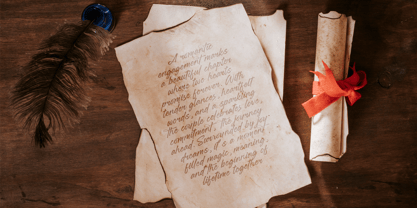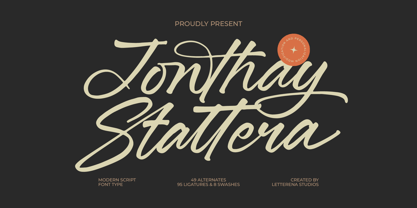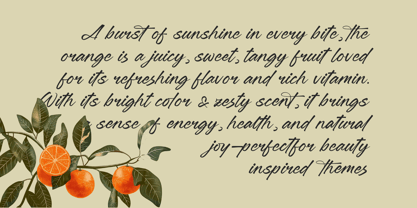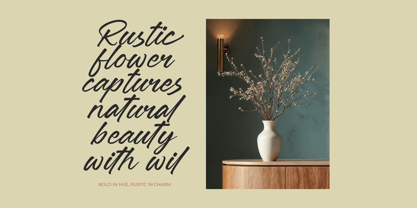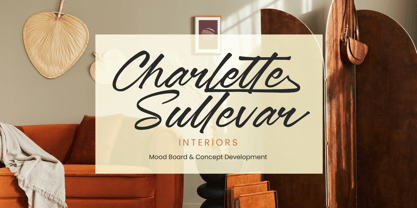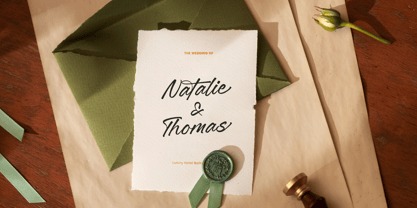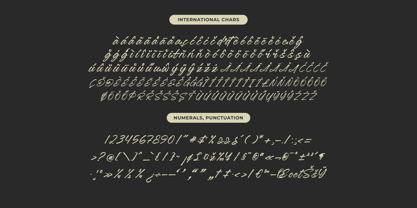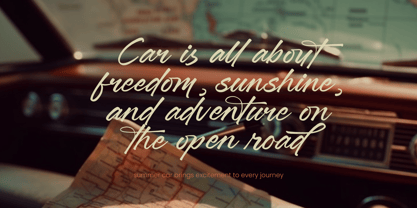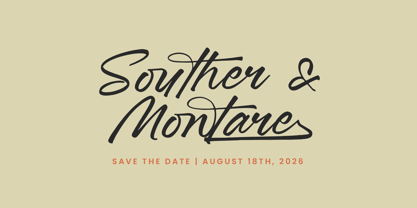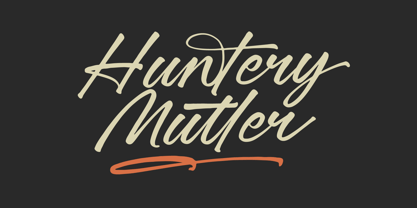
Jonthay Stattera
von Letterena Studios
Die Schriftfamilie Jonthay Stattera wurde von Heru Utama Putra entworfen und von Letterena Studios veröffentlicht. Jonthay Stattera enthält 2 Stile und Familienpaketoptionen.
Jonthay Stattera - Modern Script Font Type , from Letterena, is a Luxury Script font, suitable for any projects such as: logos, branding projects, homeware designs, product packaging, mugs, quotes, posters, shopping bags, t-shirts, book covers, name card, invitation cards, greeting cards, label, photography, watermark, special events, and all your other luxury and beautiful projects that need a Luxury Script taste.